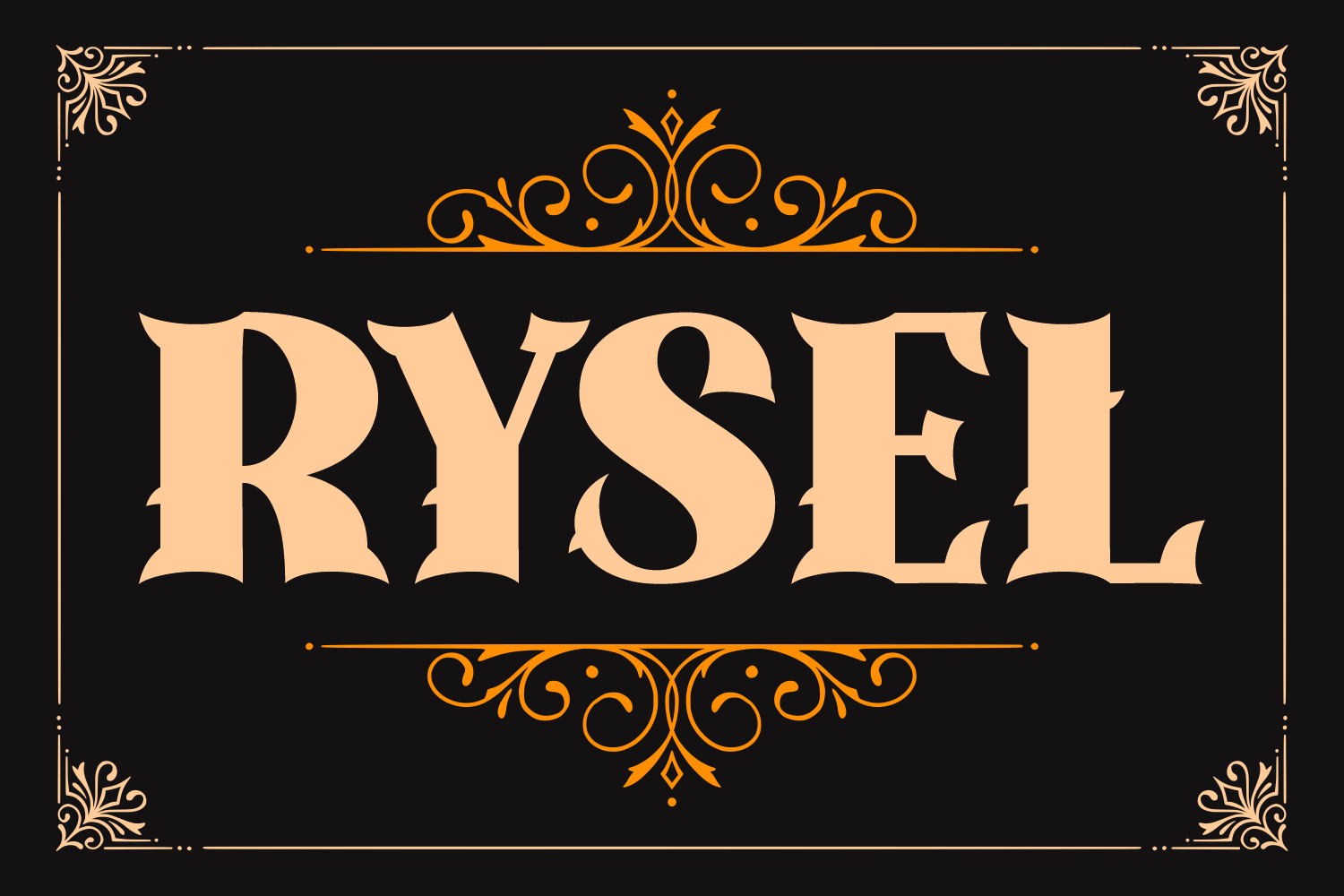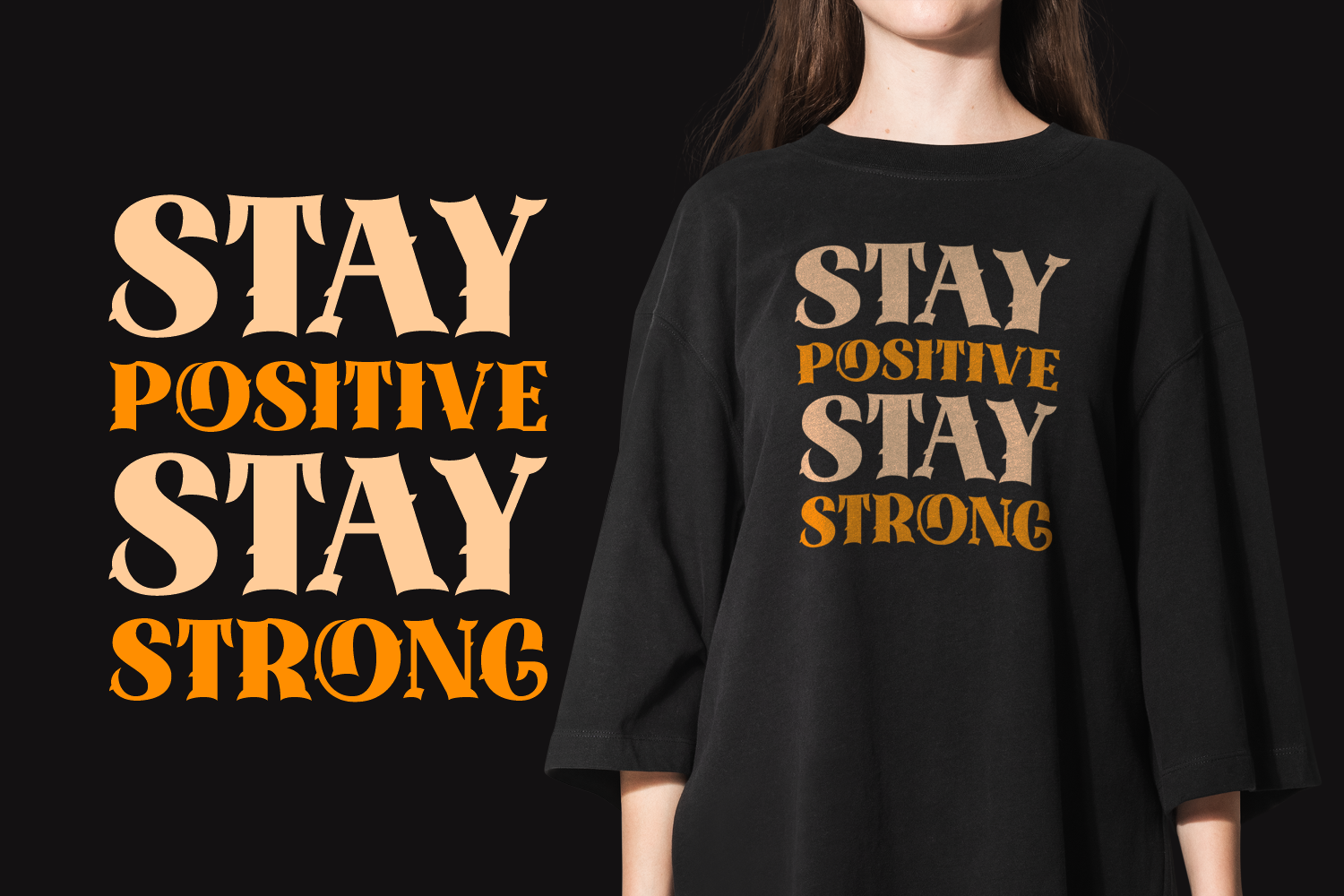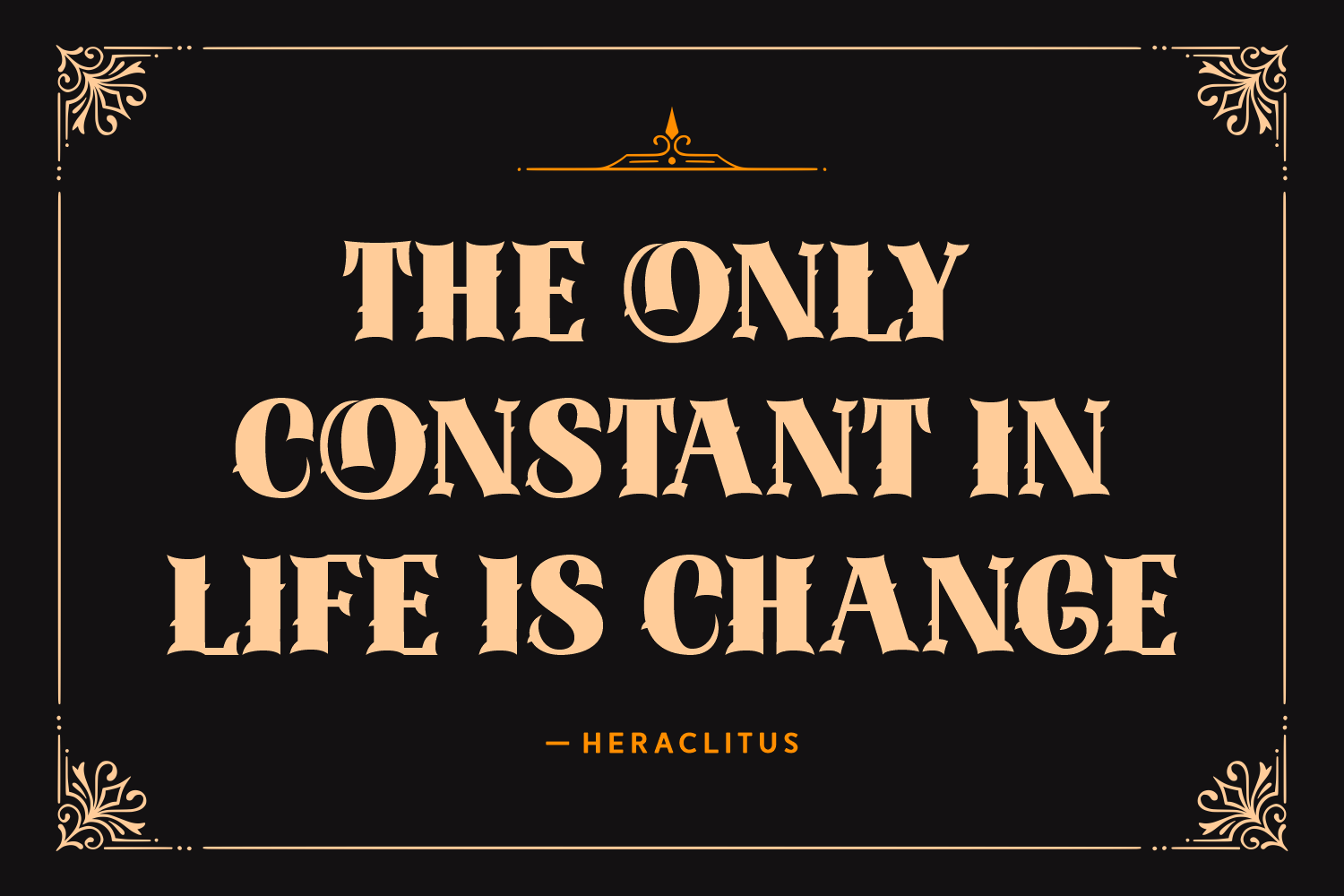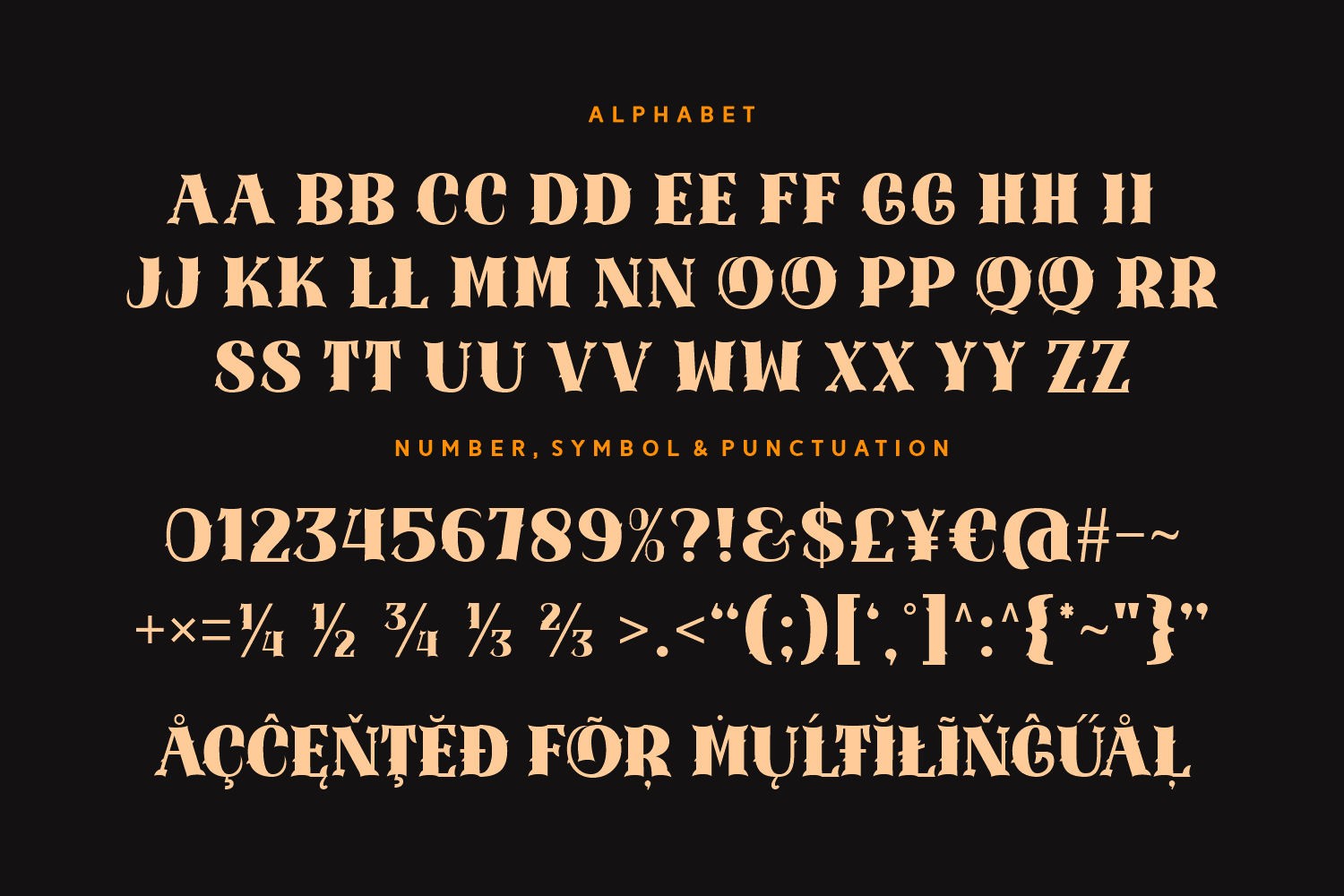
Rysel is a decorative blackletter font with Victorian flair and refined bold strokes. Ideal for vintage logos, ornate packaging, and elegant historical-themed projects.